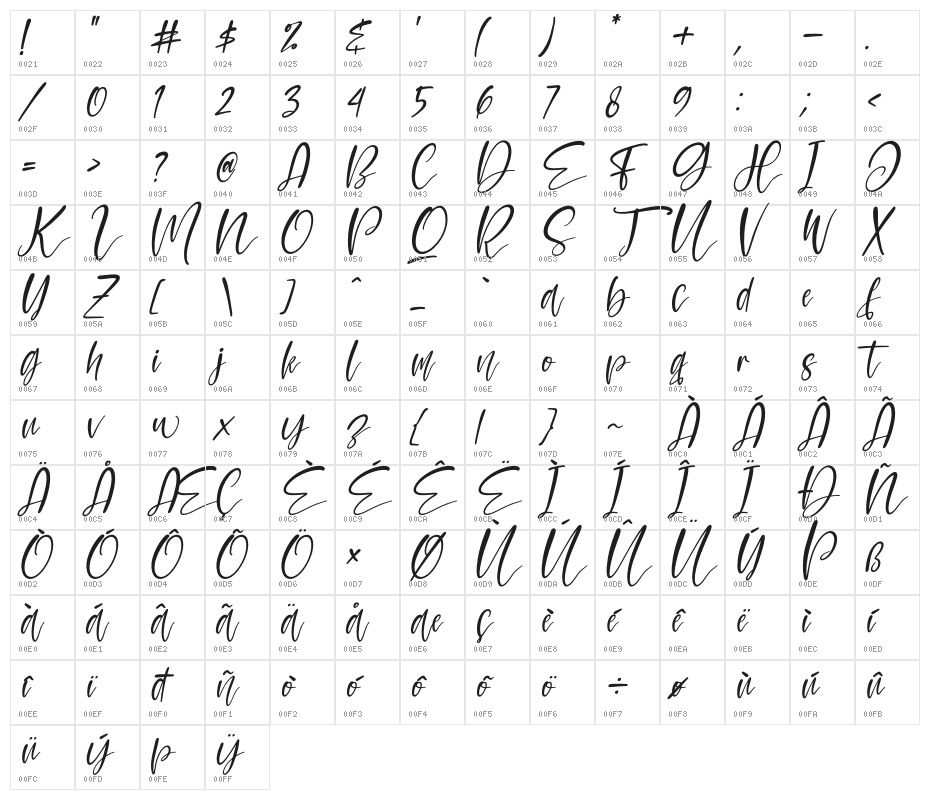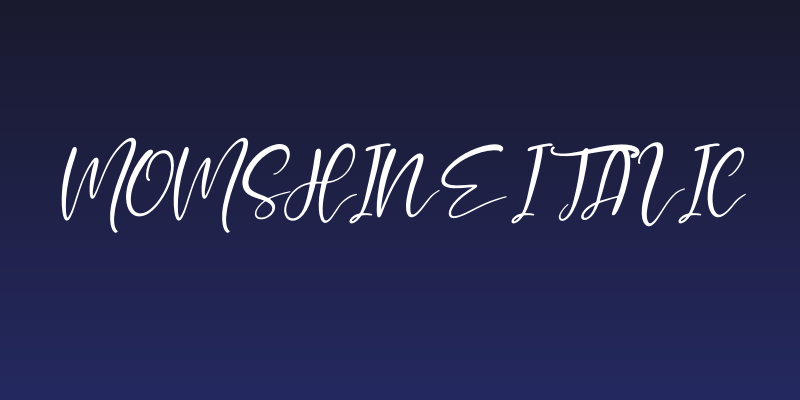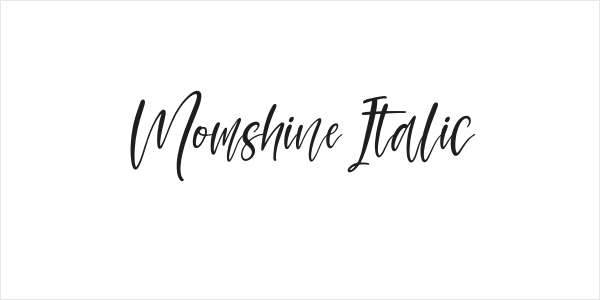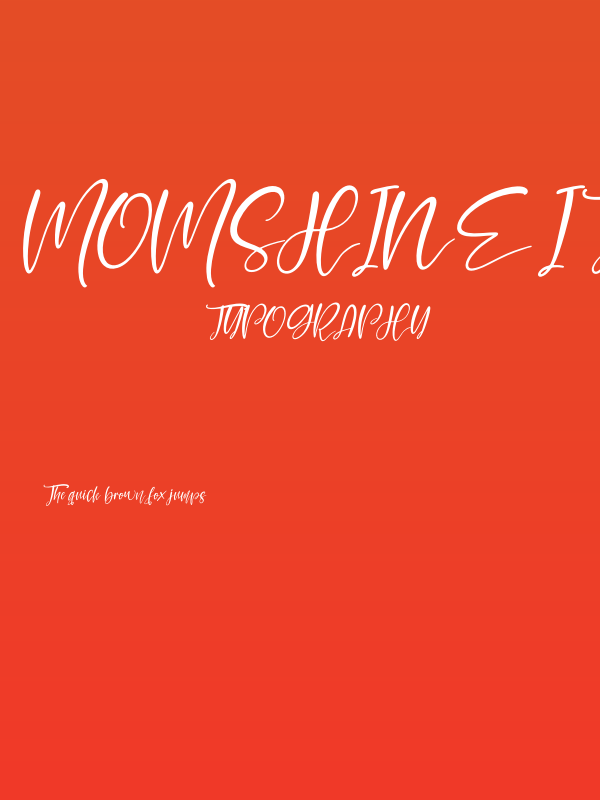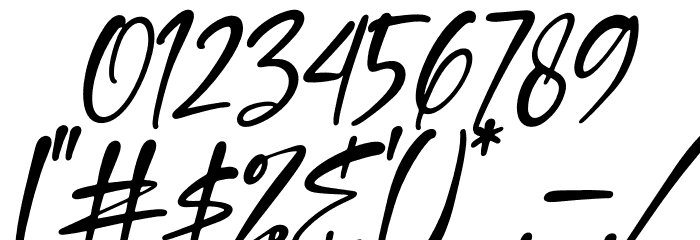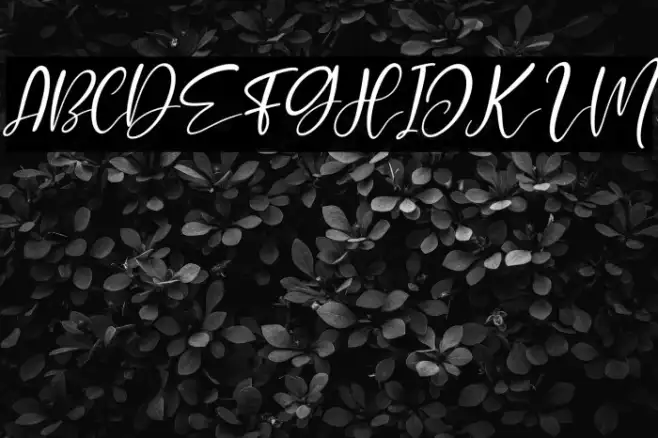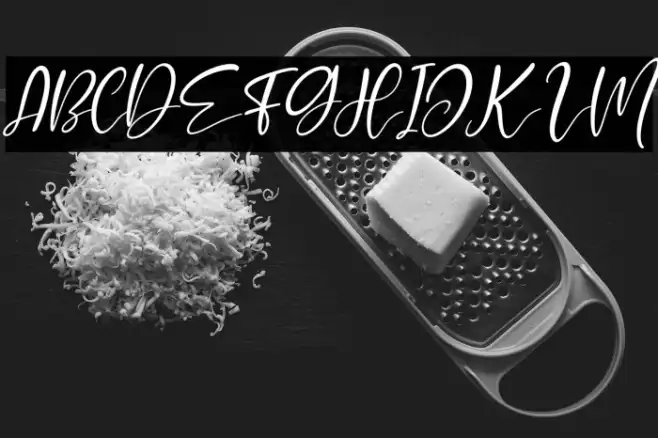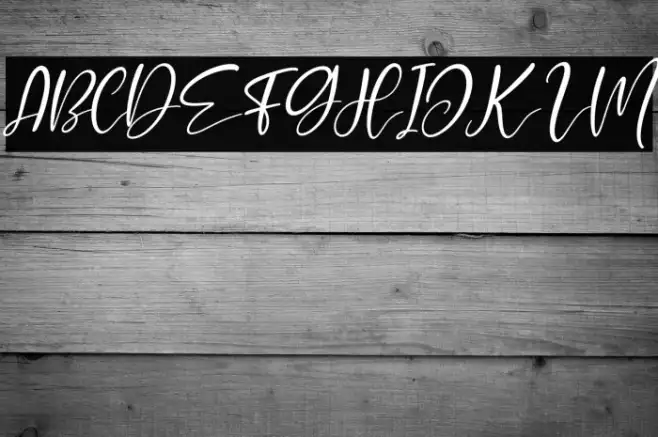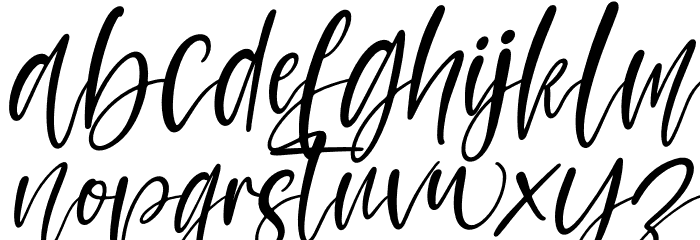
Momshine Italic Font
Momshine Italic Description
This font features a dynamic and flowing script style, characterized by its elegant and cursive letterforms. The uppercase letters exhibit a graceful, sweeping motion, while the lowercase letters maintain a consistent fluidity, enhancing the overall aesthetic. The numerals are bold and slightly slanted, complementing the script's lively nature. Special characters are integrated seamlessly, maintaining the font's cohesive look. The strokes vary in thickness, providing a medium contrast that adds to the font's expressive quality. Its italic nature gives it a sense of movement and sophistication.
| Use Case | Logos, Invitations, Branding |
| Proposed Projects | Ideal for wedding invitations, greeting cards, branding projects, and elegant logo designs. |